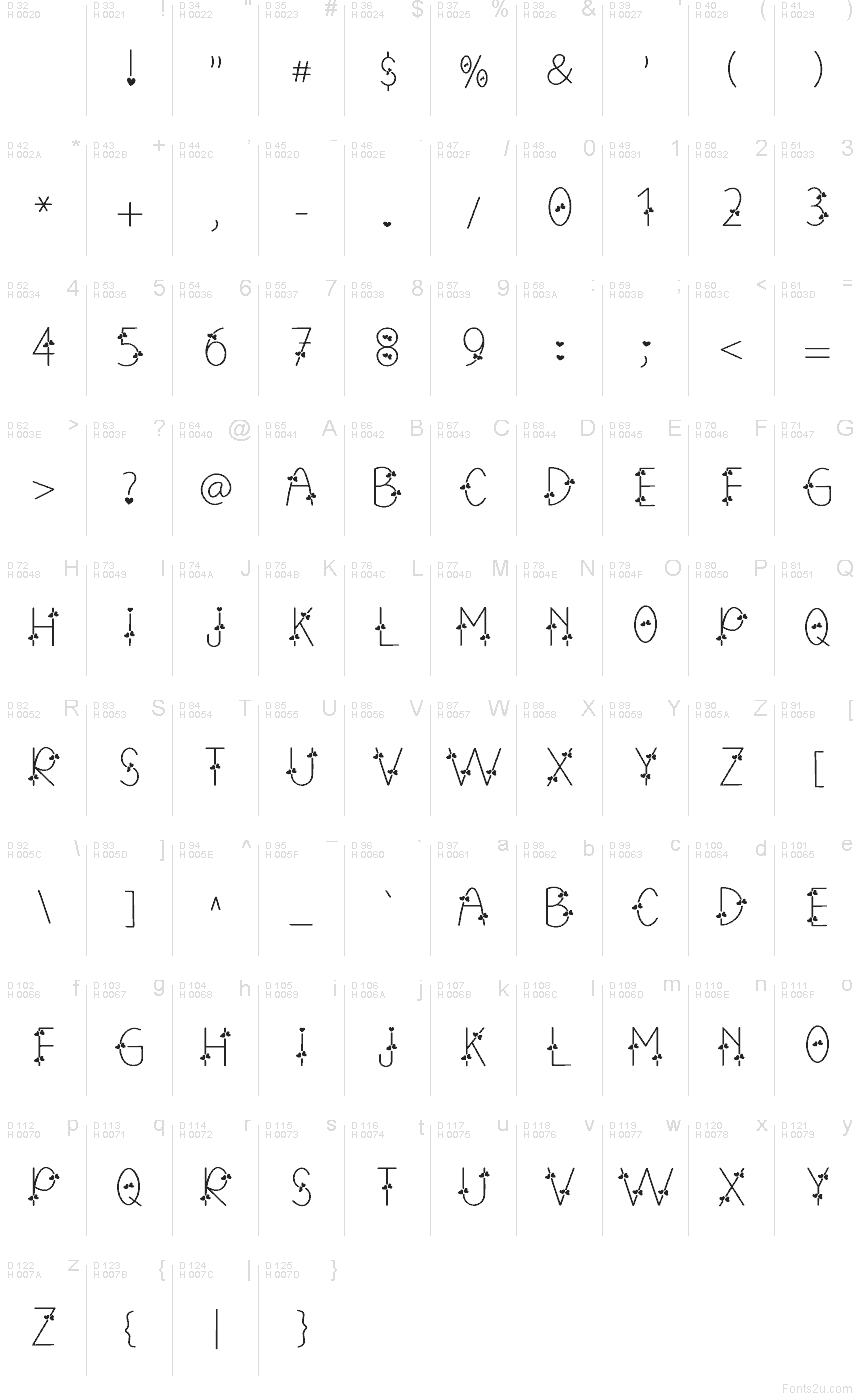
Pinky Love
Pinky Love font by hl_studio is a free holiday Valentine typeface with slender, hand-drawn letters dotted in tiny heart clusters like confetti. The strokes are light and airy, giving words a delicate, whimsical feel that still reads clearly at a glance. Those clustered hearts along the stems and corners add a sense of movement, as if the letters were strung together like a garland across your layout.
Using Pinky Love, this free font shines on Valentine cards, wedding or engagement party invitations, romantic social posts, gift tags, and sweet-themed packaging. It works beautifully as a big, festive headline with a simple sans serif underneath for the smaller details. Keep it at larger sizes so the heart accents stay crisp and readable in print and on screen.